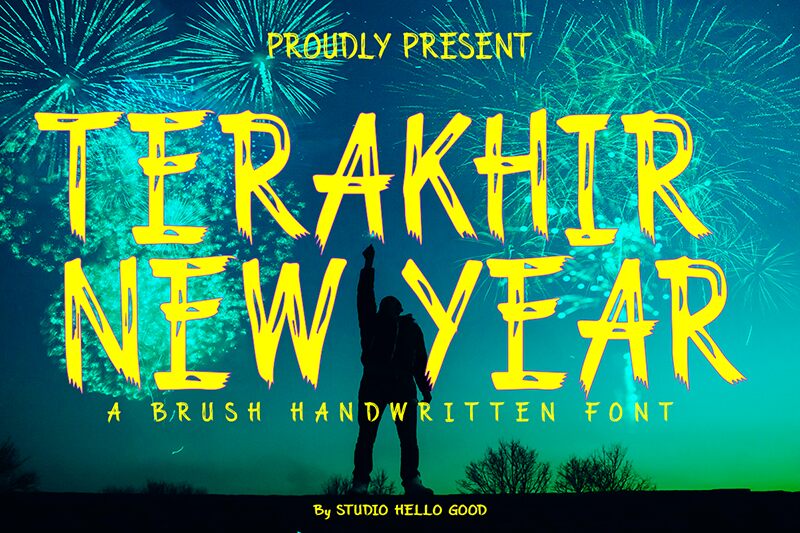
Terakhir New Year font by Studio Hello Good is a free brush font exuding energy and dynamic flair. With its expressive and informal style, it offers a modern and impactful feel, perfect for grabbing attention with an artistic touch.
This font is highly suitable for branding, headlines, labeling, posters, quotes, titles, greeting cards, logos, apparel, product packaging, and invitations. Its dynamic and expressive nature complements designs that require a unique and engaging presence.